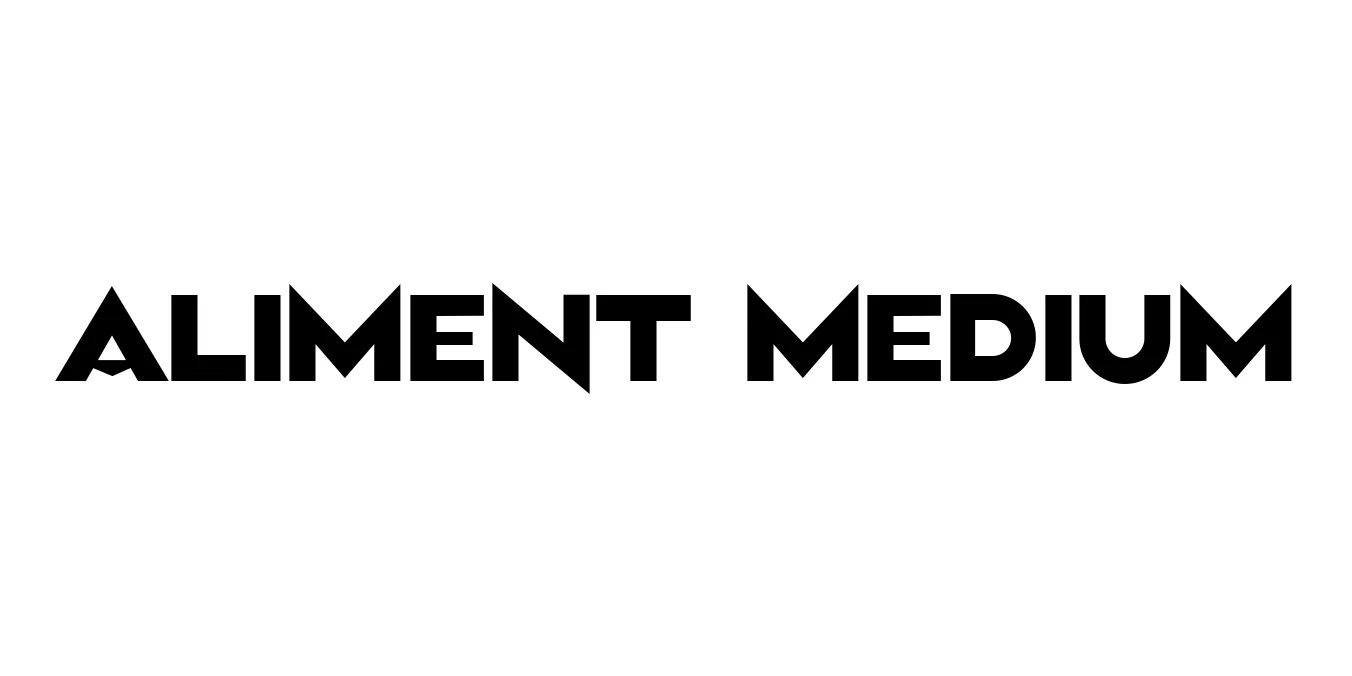
Aliment Medium
Designed by Benoît Bodhuin
Aliment Medium is a striking contemporary sans-serif typeface designed by the innovative Benoît Bodhuin. This font family is celebrated for its unique geometric construction and high-contrast strokes that provide a rhythmic, almost experimental visual quality. The Medium weight acts as a versatile anchor for the series, balancing quirky letterforms with professional clarity, making it a standout choice for designers looking to break away from traditional modernist fonts.
The history of Aliment is rooted in the exploration of boundaries between functional typography and graphic expression. Its distinct personality shines through in its unexpected curves and sharp terminals, which give it a signature look in digital and print media alike. Whether used for a minimalist brand identity or an avant-garde editorial layout, Aliment Medium brings a sophisticated yet playful energy to the page.
Aliment Medium Best Uses
Creating unique visual identities and distinctive logos.
Captivating headlines and pull quotes in magazines.
Stylized hero sections and eye-catching call-to-actions.
High-impact graphic design and artistic event layouts.